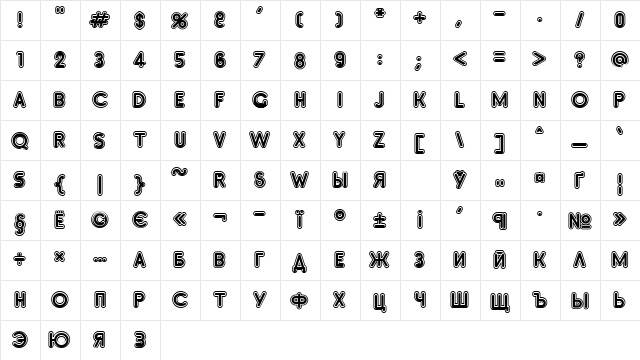
InsetE Extra Bold
Design Context for InsetE Typeface
InsetE takes a measured approach to typography — its balanced proportions and neutral character make it a reliable workhorse for both digital and print work. Its bold stroke weight gives it real presence on the page.